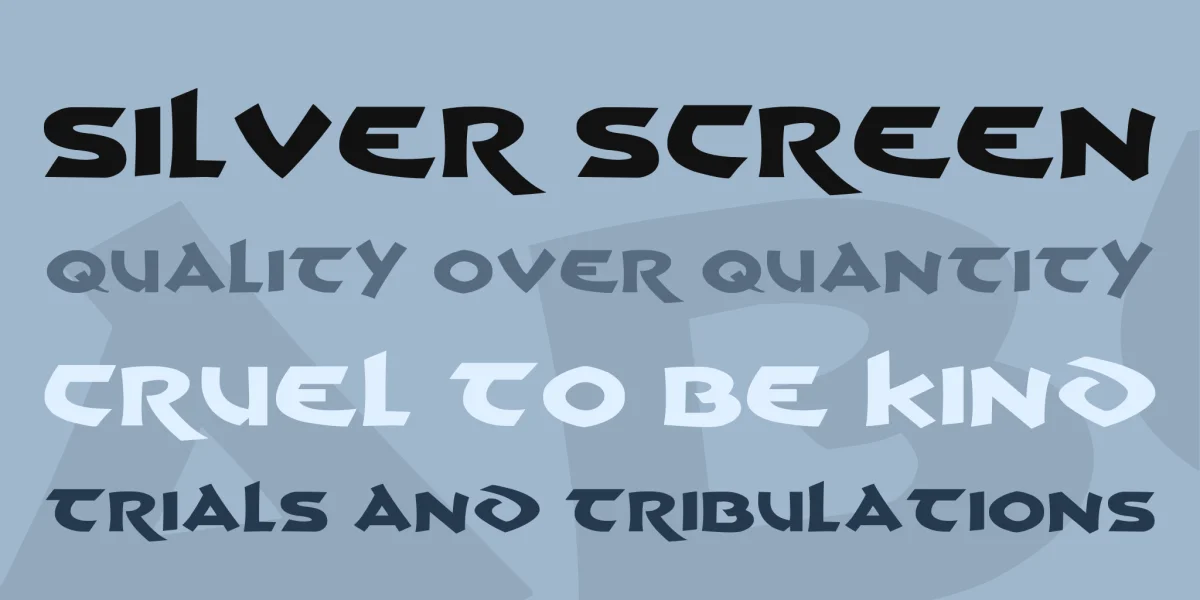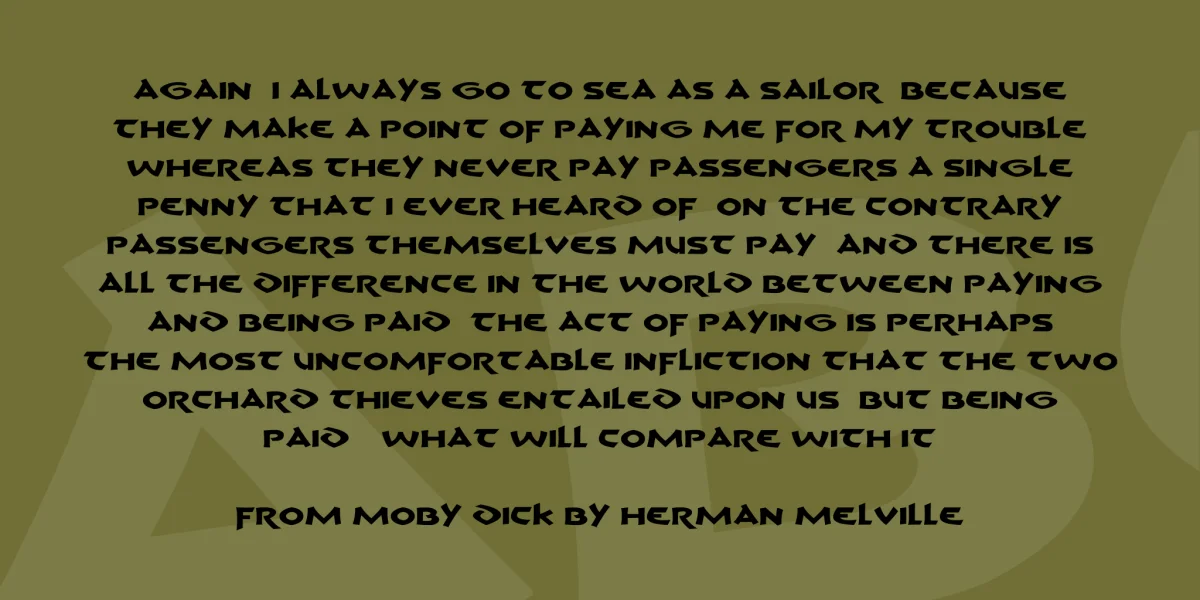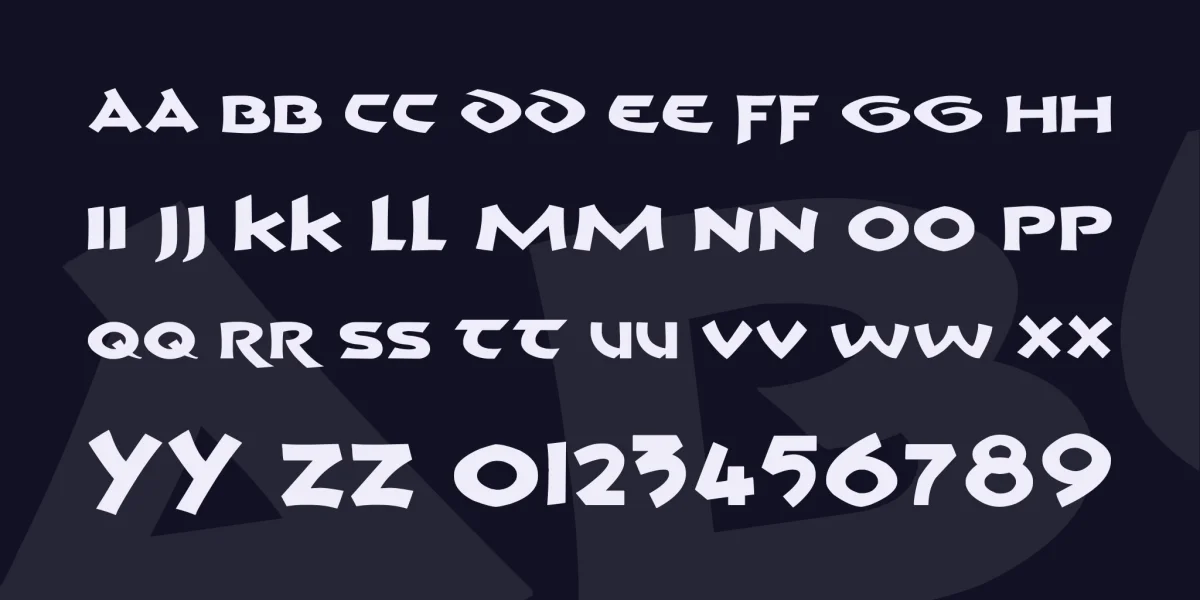
After finding source material for all the letters and number, here is the font from the Conan movie and books. Nuff Said! So now "What is best in life?"